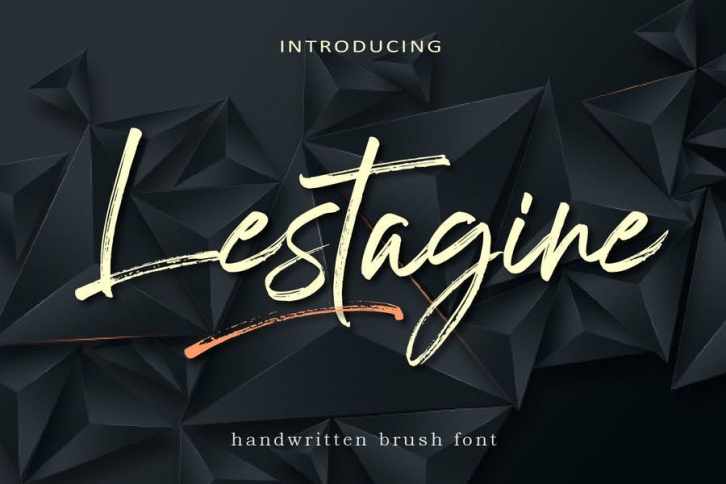
Lestagine is a beautiful and relaxed handwritten brush font. Fall in love with its incredibly versatile style.
• Regular & Italic
• Alternates, Ligature & Swash